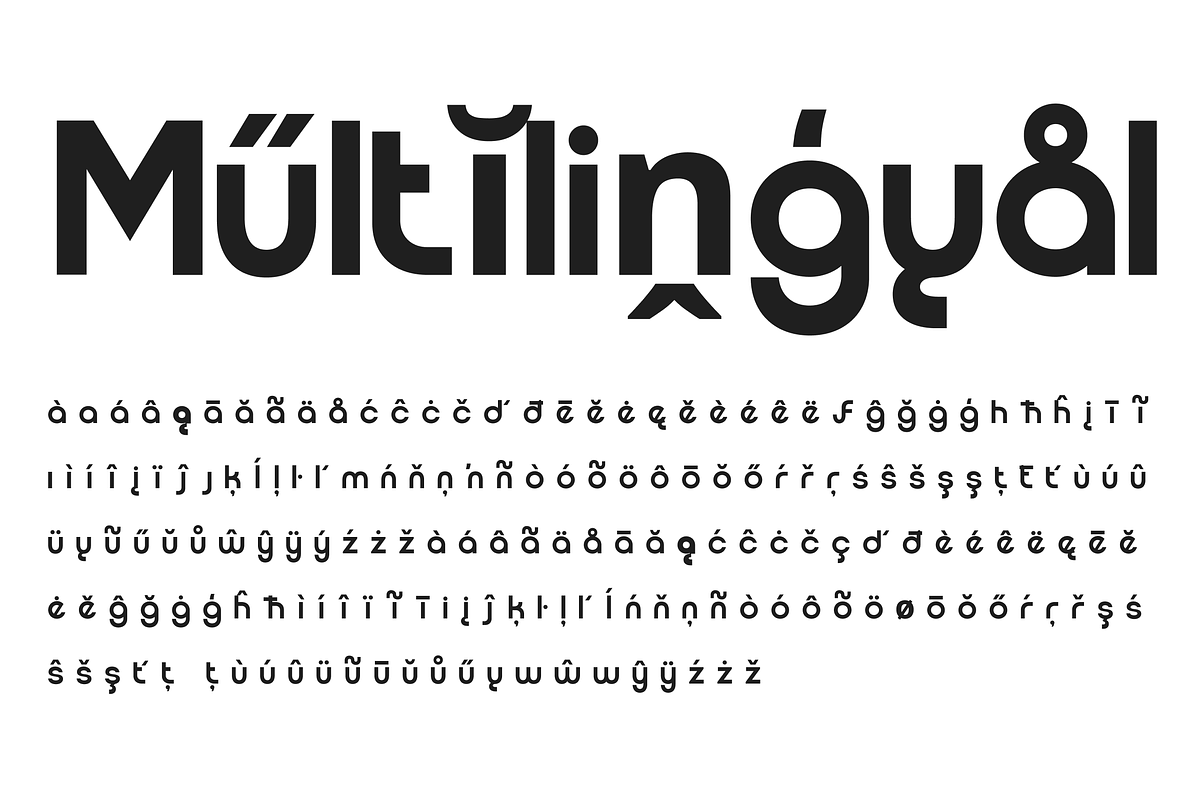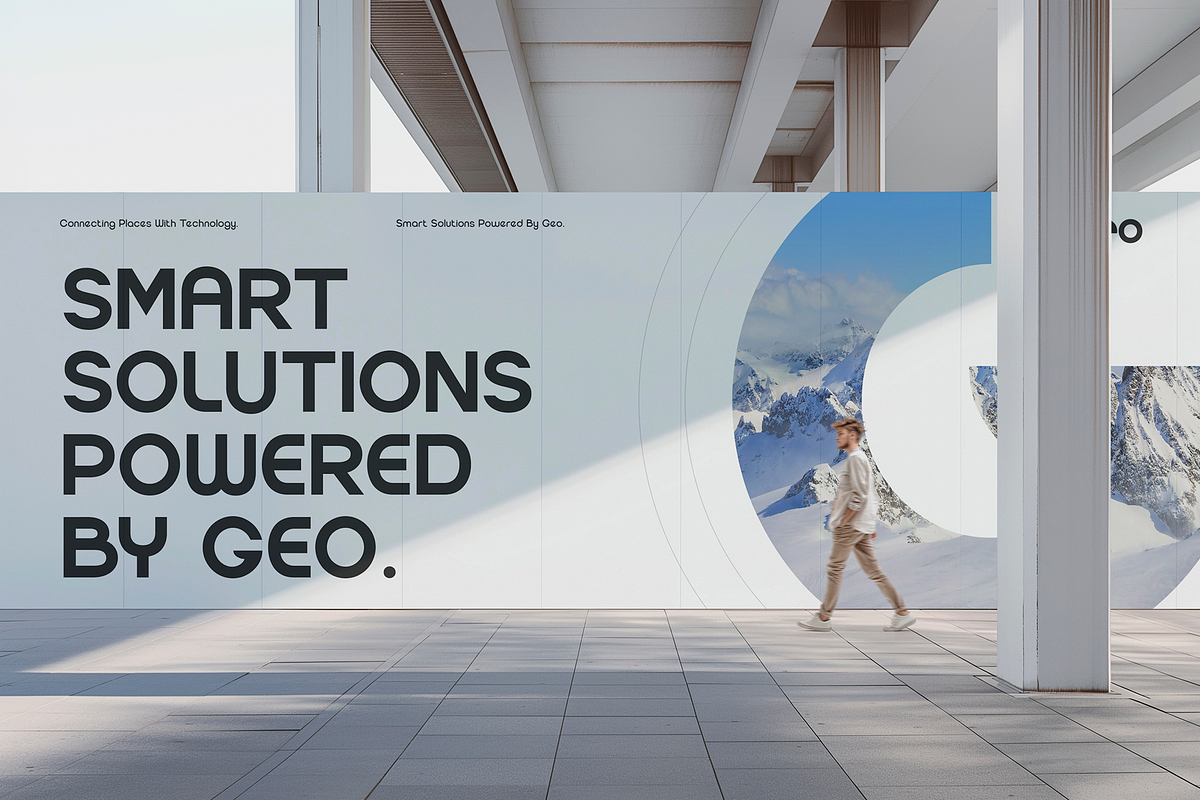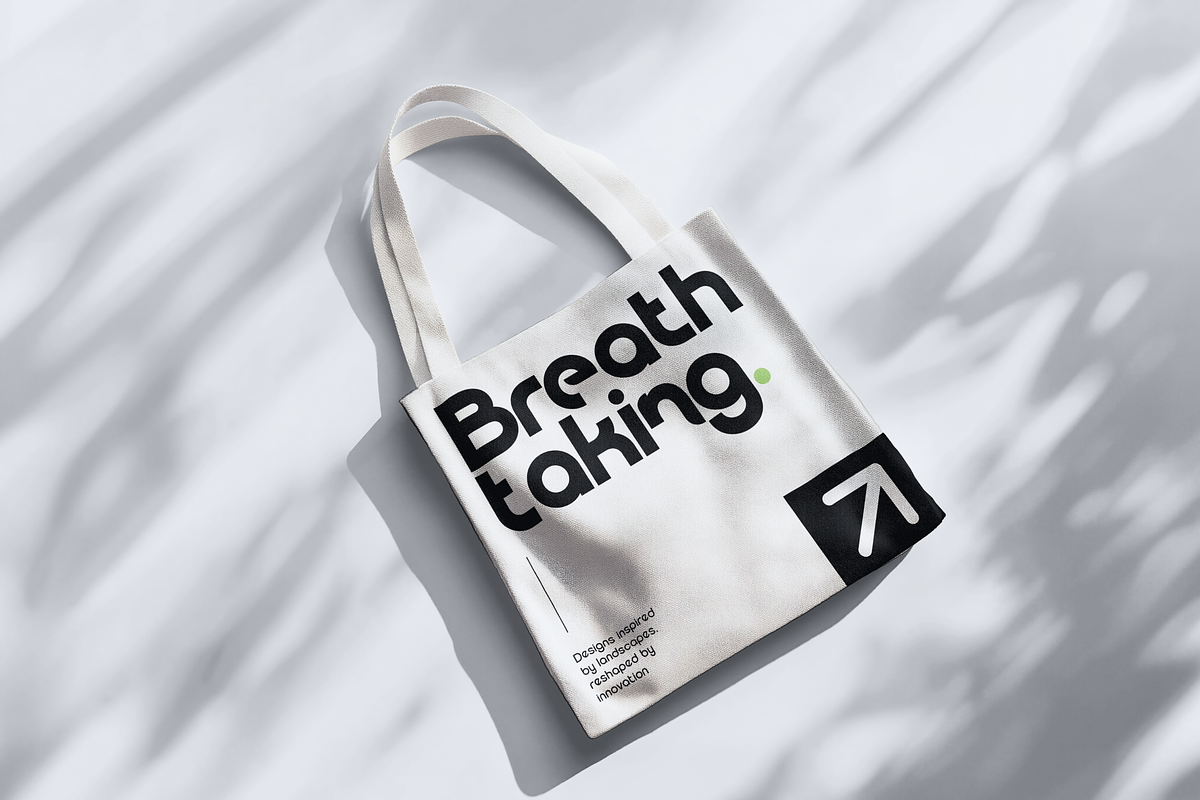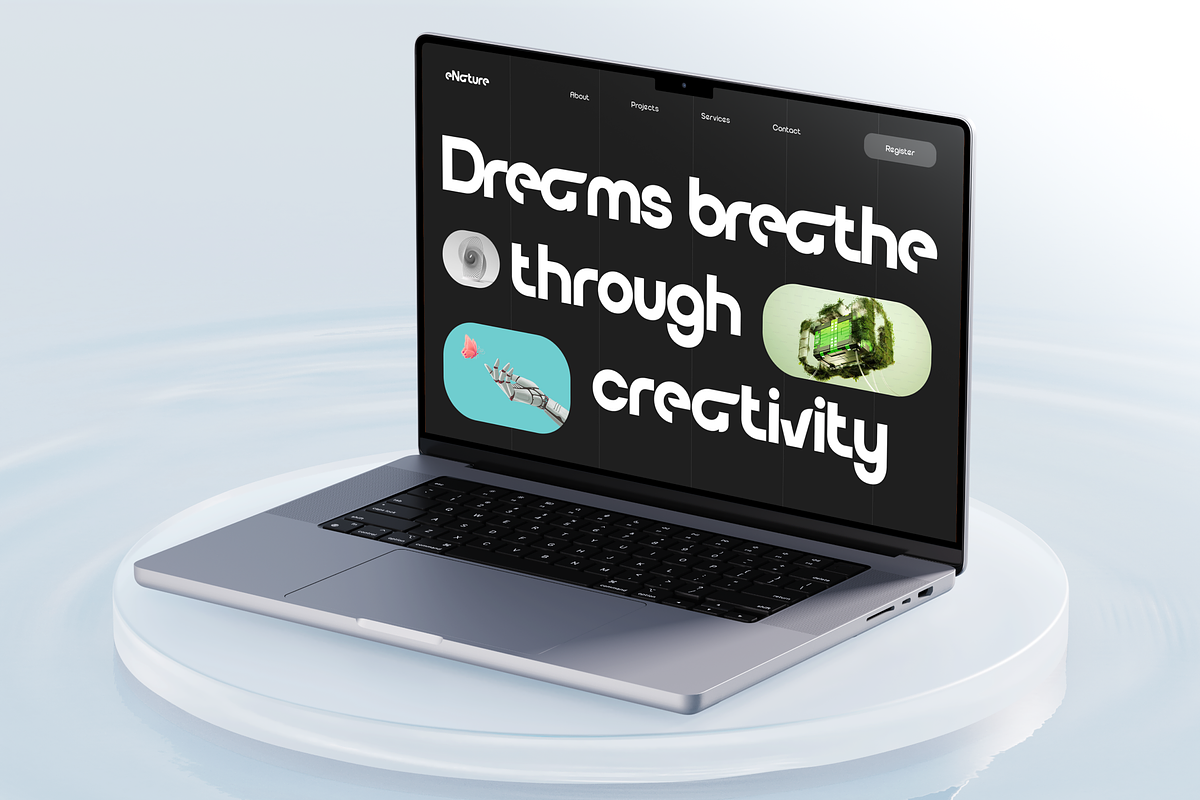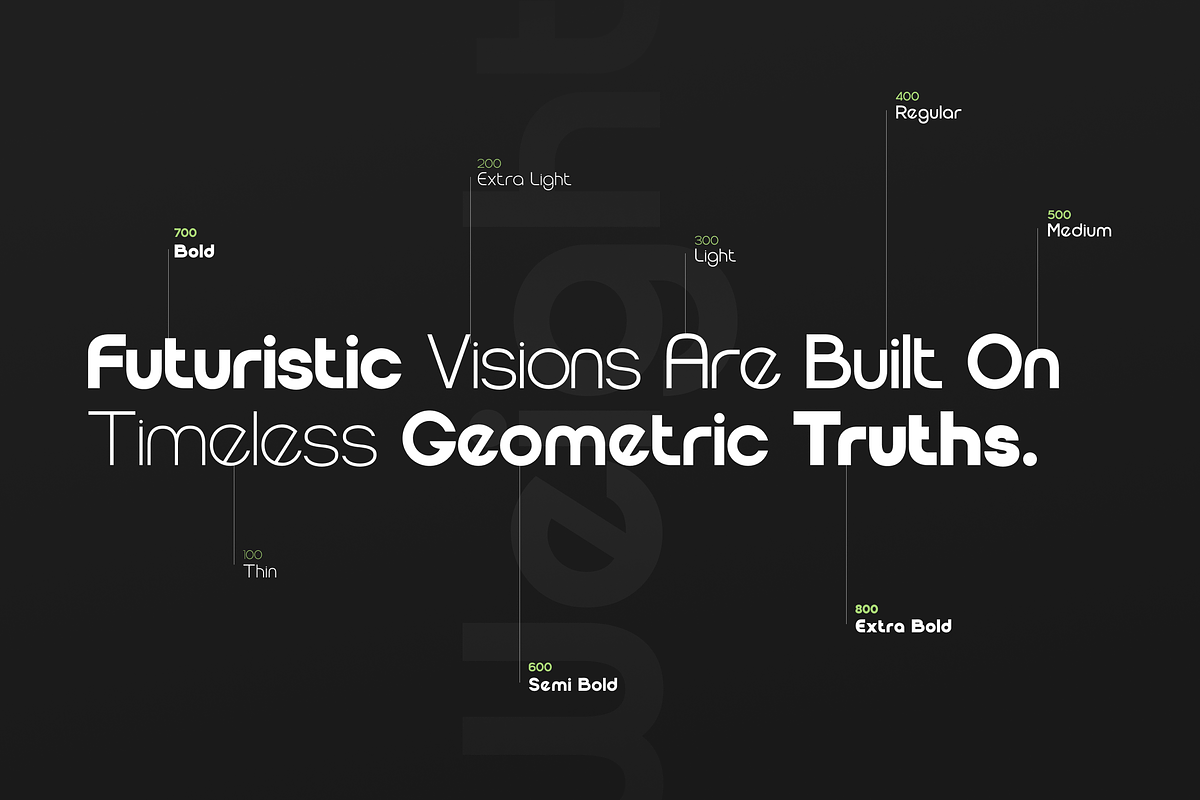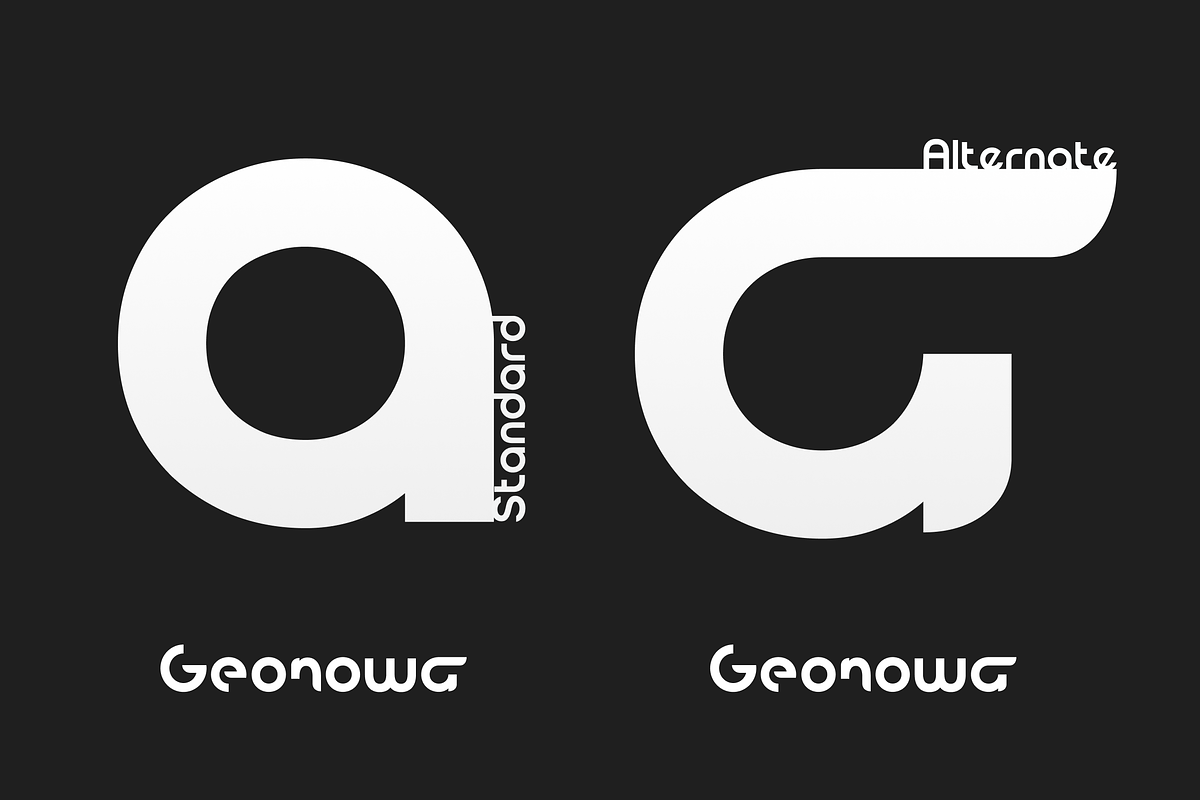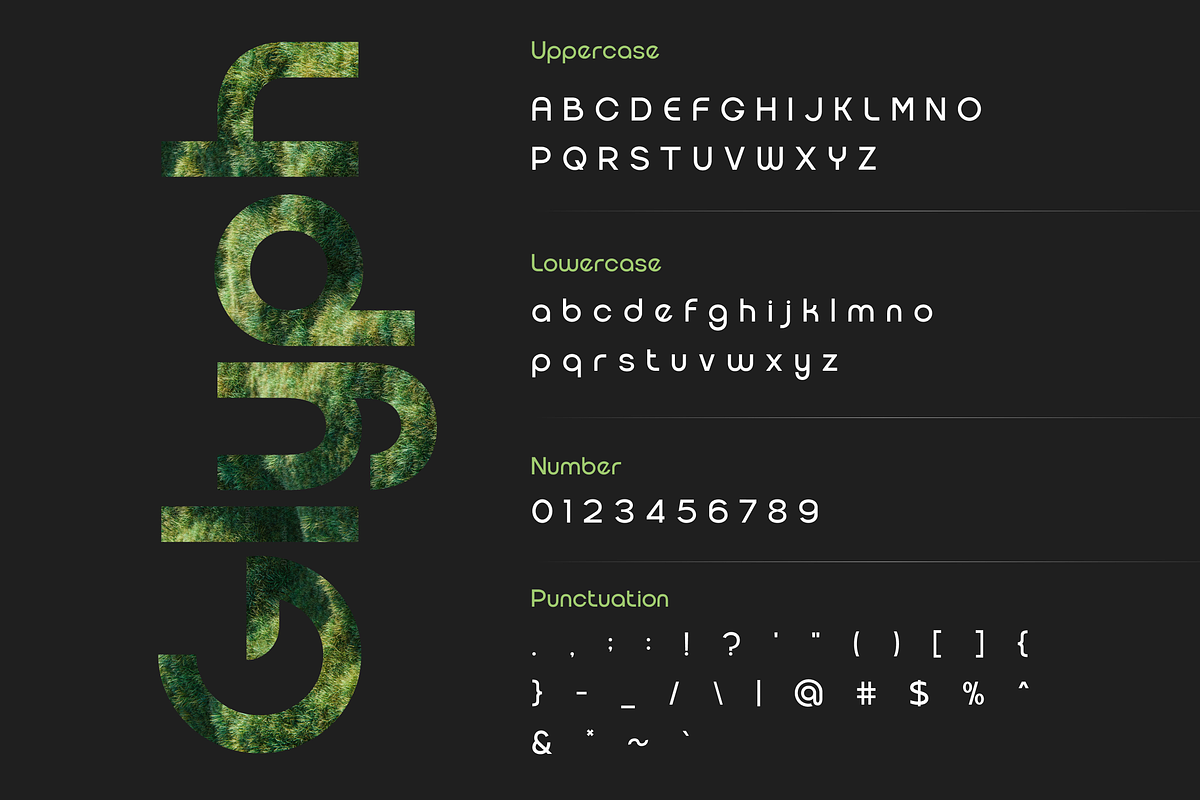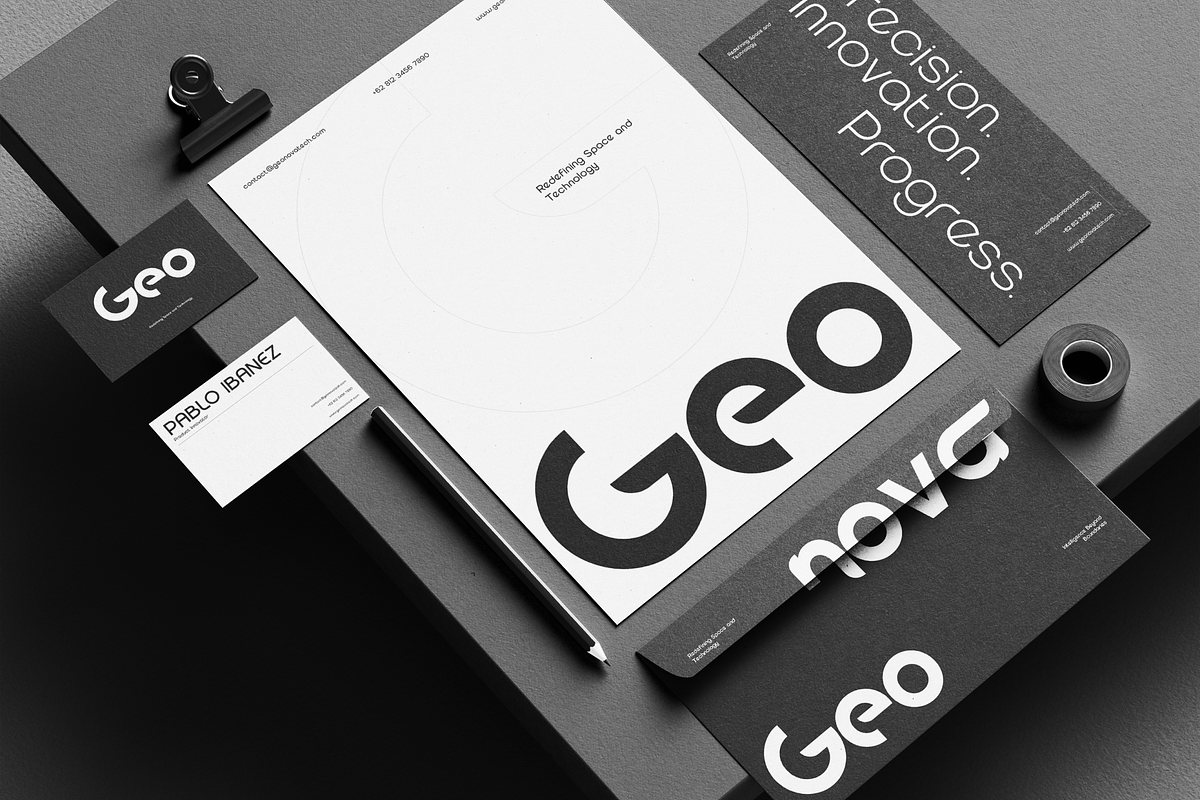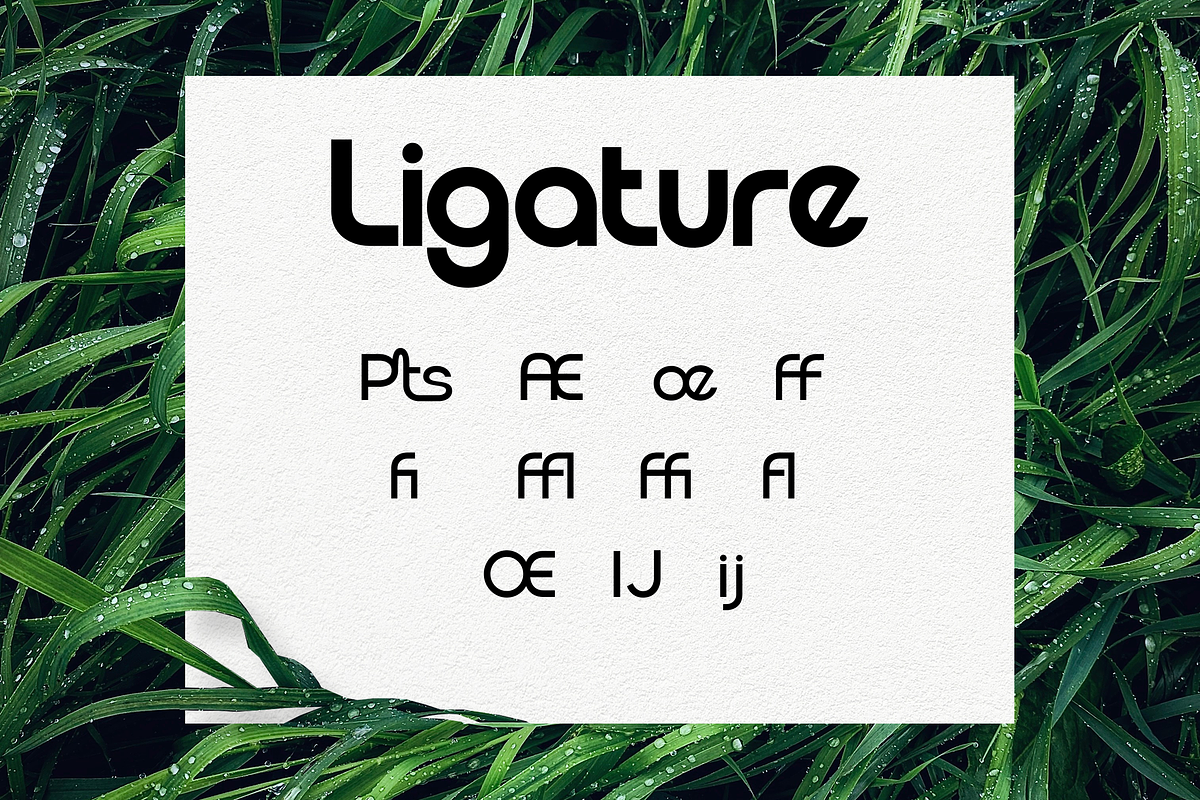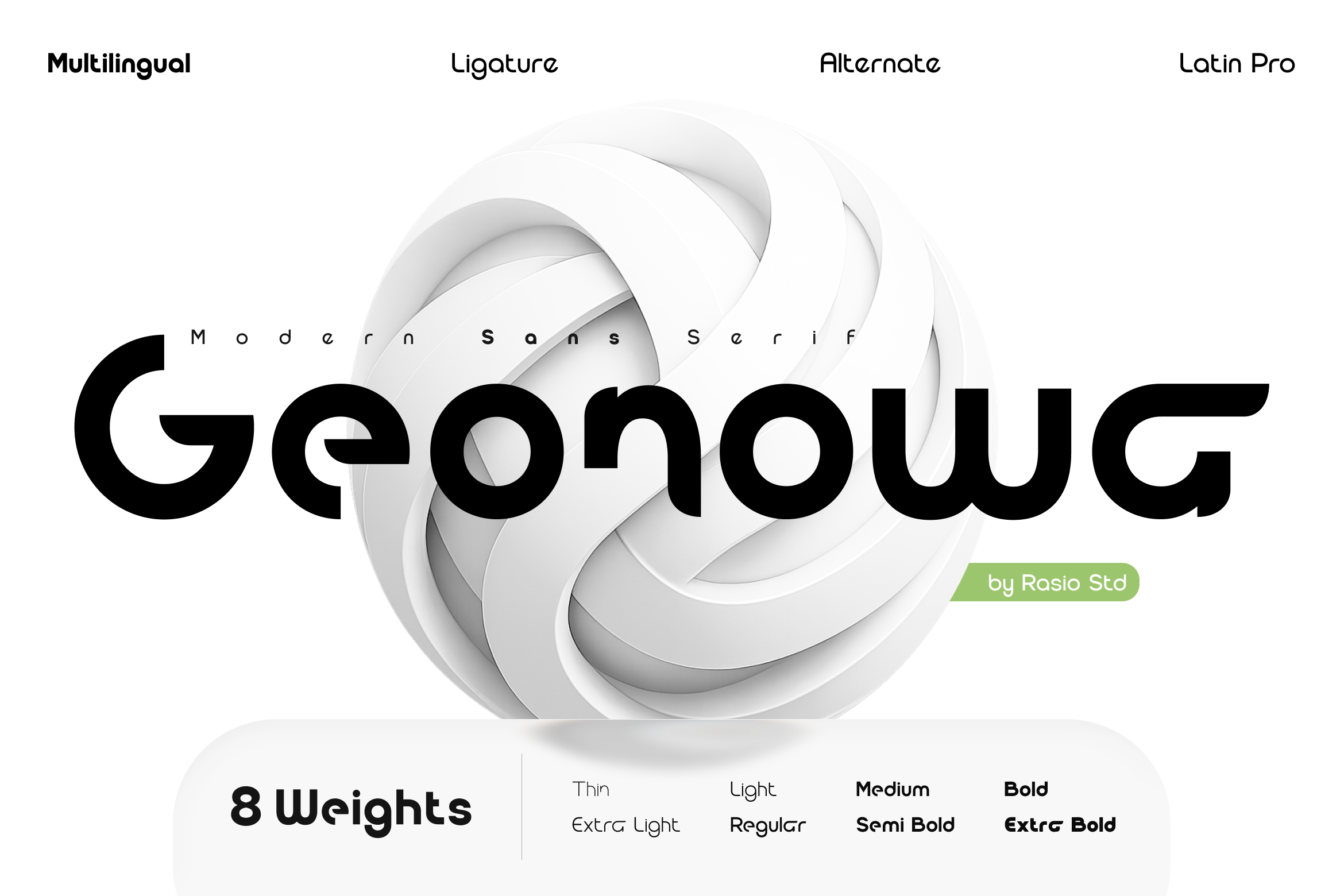
Geonowa Modern Sans Serif Font
Geonowa is a modern geometric sans serif typeface family built with clean circular forms, smooth curves, and balanced proportions for a sleek contemporary look. The design emphasizes clarity and versatility, combining minimal structure with subtle rounded details that feel both friendly and professional. Includes uppercase, lowercase, numbers, punctuation, ligatures, alternates, multilingual support, and 8 weights from thin to extra bold.
Relevance and Use Cases is perfect for corporate branding, tech startups, mobile apps, websites, dashboards, presentations, packaging, editorial layouts, and modern marketing materials that require clean, professional, and highly readable typography across multiple weights. Suitable for business identities, software and app interfaces, websites, corporate presentations, product packaging, editorial designs, advertising, social media visuals.
- Clean geometric construction with smooth circular forms
- Subtle rounded edges for a modern and approachable feel
- Balanced proportions for clarity across all weights
- Consistent stroke contrast for a sleek, professional look
- Optimized spacing for both headline impact and body text readability
- Brand identity systems requiring a bold, modern, and professional look
- UI/UX interfaces, dashboards, and tech or startup products
- Editorial layouts, posters, and strong typographic headlines
- Packaging, labels, and product branding with a clean geometric style
- Social media graphics and digital campaigns with sharp, contemporary impact